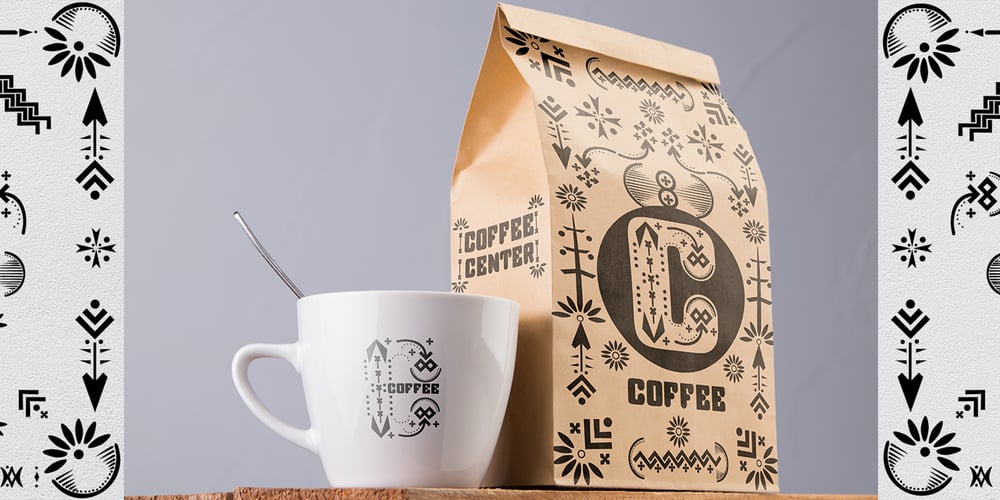
Relic Island 2 Font Family was designed by Ibram Syah and published by Jehansyah. Relic Island 2 contains 5 styles and family package options. This is a font with a pretty vintage lookYou can express your design looks old-fashioned but has a modern feel,with several options that you can use and develop your work perfectly